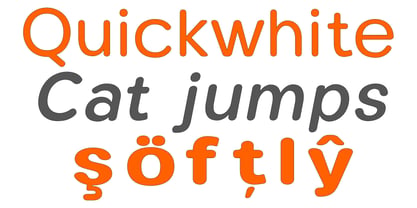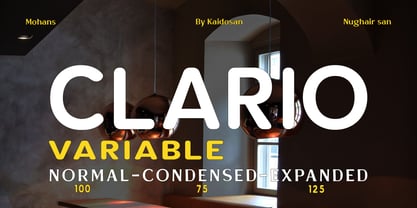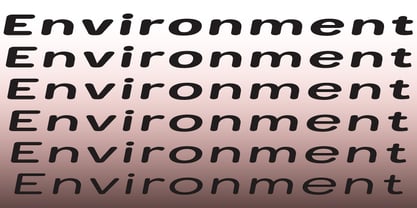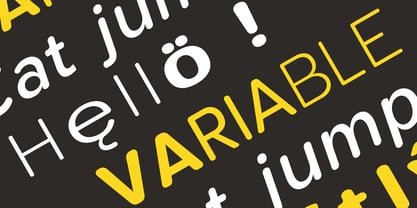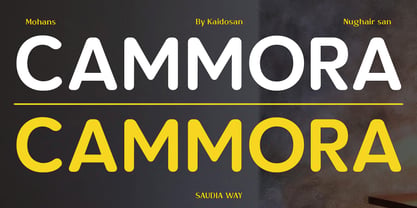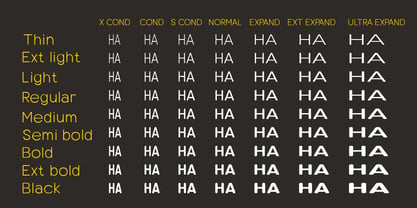
Clario Variable
Die Schriftfamilie Clario Variable wurde von Muhammad Ansari entworfen und von Kaidosan veröffentlicht. Clario Variable enthält 1 Stile. Mehr über diese Familie
CLARIO VARIABLE is an innovative and highly comprehensive rounded font superfamily, delivering a consistent and warm character across its entire spectrum of weights and widths. With 146 styles spanning Normal, Condensed, and Expanded fonts, and a weight range from Thin to Black, CLARIO offers an unrivaled typographic system for building a truly cohesive, approachable, and dynamic visual identity. Constructed with high precision, every character across all three width variants (Normal, Condensed, Expanded) offers exceptional legibility in any context—from bold Expanded headlines and space-saving Condensed text for UIs, to comfortable Regular body text. Smooth, rounded finishes on every corner eliminate stiffness, creating a modern persona that is warm, intimate, and highly flexible. Key Features & Benefits: Complete Superfamily System: 146 styles comprising Normal, Condensed, and Expanded sets, each with 8 weights (Thin to Black) and corresponding italics, providing absolute creative control. Unwavering Consistency: The “tactile softness” philosophy is applied uniformly across the glyph set and all three width variants, maintaining a coherent personality in every application. Extreme Flexibility: The wide combination of widths and weights makes it a perfect solution for complex branding, dense editorial design, user interfaces (UI/UX), and scalable design systems. Comprehensive Character Set: Supports over 200 Latin-based languages ​​(including Expanded Latin) with a variety of stylistic alternatives, ligatures, and numerals in each style. Technical Reliability: Clean font files come with automatic hinting for crisp rendering on low-resolution screens. Ideal Applications: Systemic Branding & Visual Identity: Perfect for global brands that require consistency across multiple media and limited spaces (packaging, merchandise, apps). Editorial & Publishing Design: The Condensed variant is ideal for dense columnar layouts, while Expanded creates a strong visual statement for covers and posters. Digital Products & Interfaces: The high clarity and width options make it a versatile solution for mobile apps, data dashboards, and websites that prioritize information hierarchy and user experience.
Designer: Muhammad Ansari
Aktuelle Foundry: Kaidosan